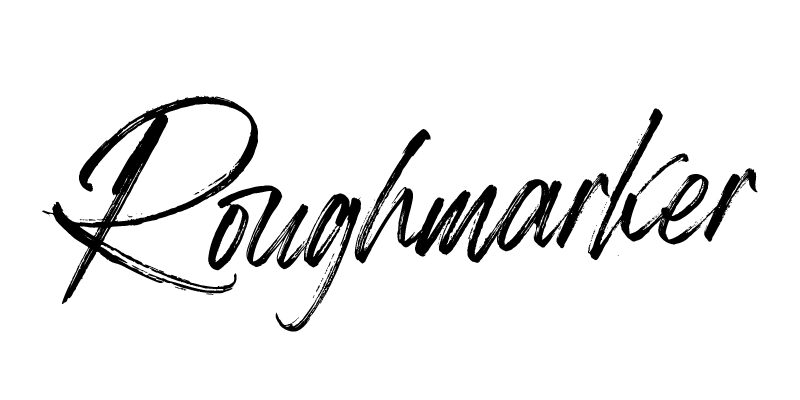
Roughmarker
Meet Roughmarker, the semi-light, condensed dry brush font designed by Muhammad Ridha Agusni. Its unique style and texture gives your designs an edgy and raw feel, perfect for projects that need a bold statement. Suitable for anything from posters, branding materials to social media graphics and websites. Use it to add a touch of personality to your next project or make a statement with its bold strokes. With Roughmarker, you're sure to stand out from the crowd.